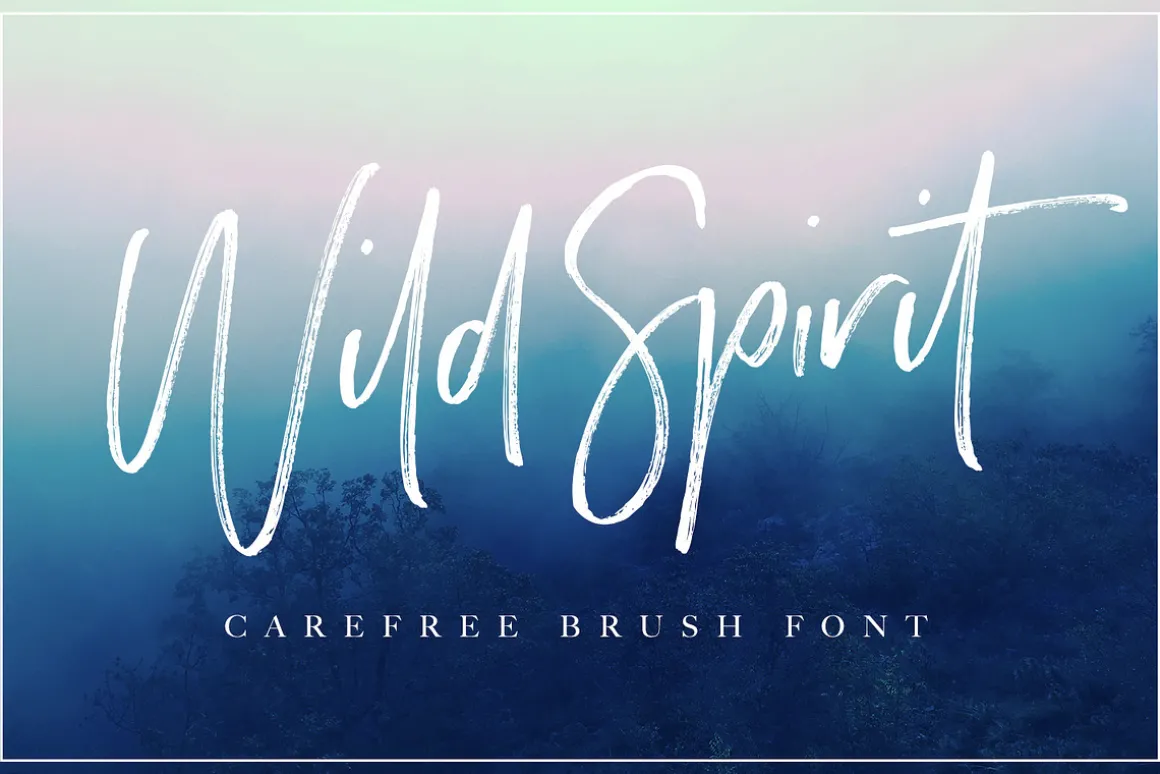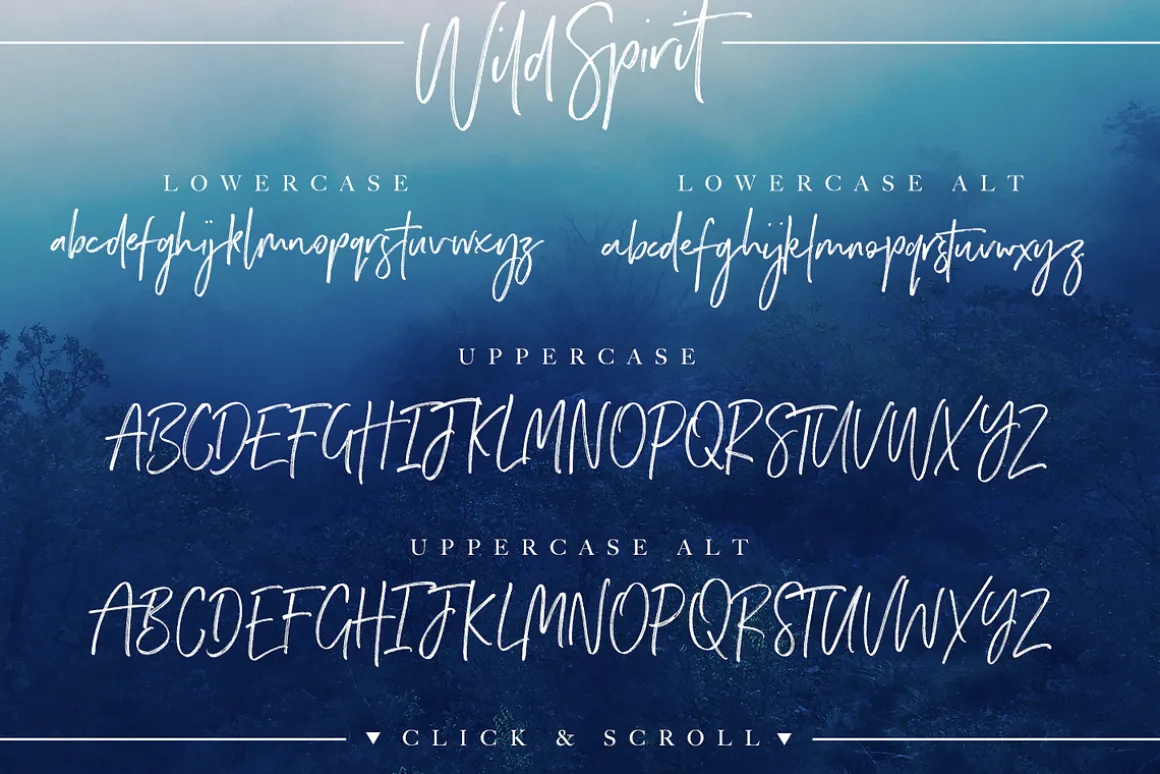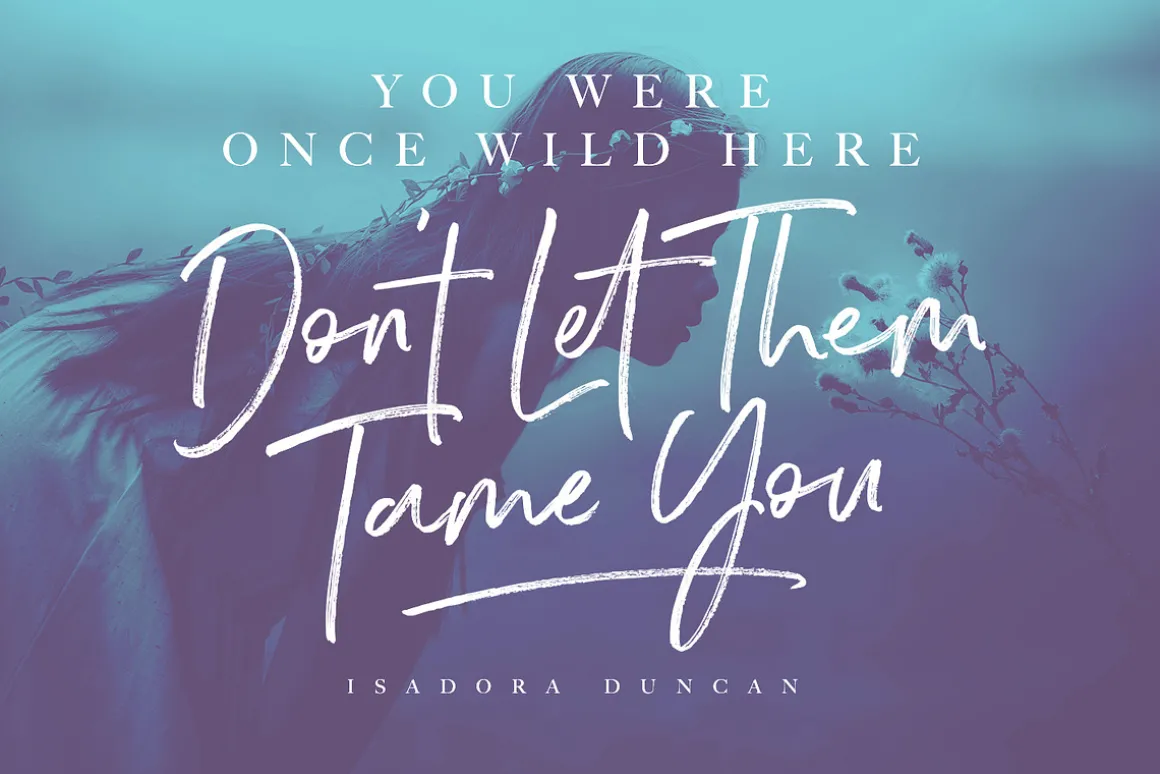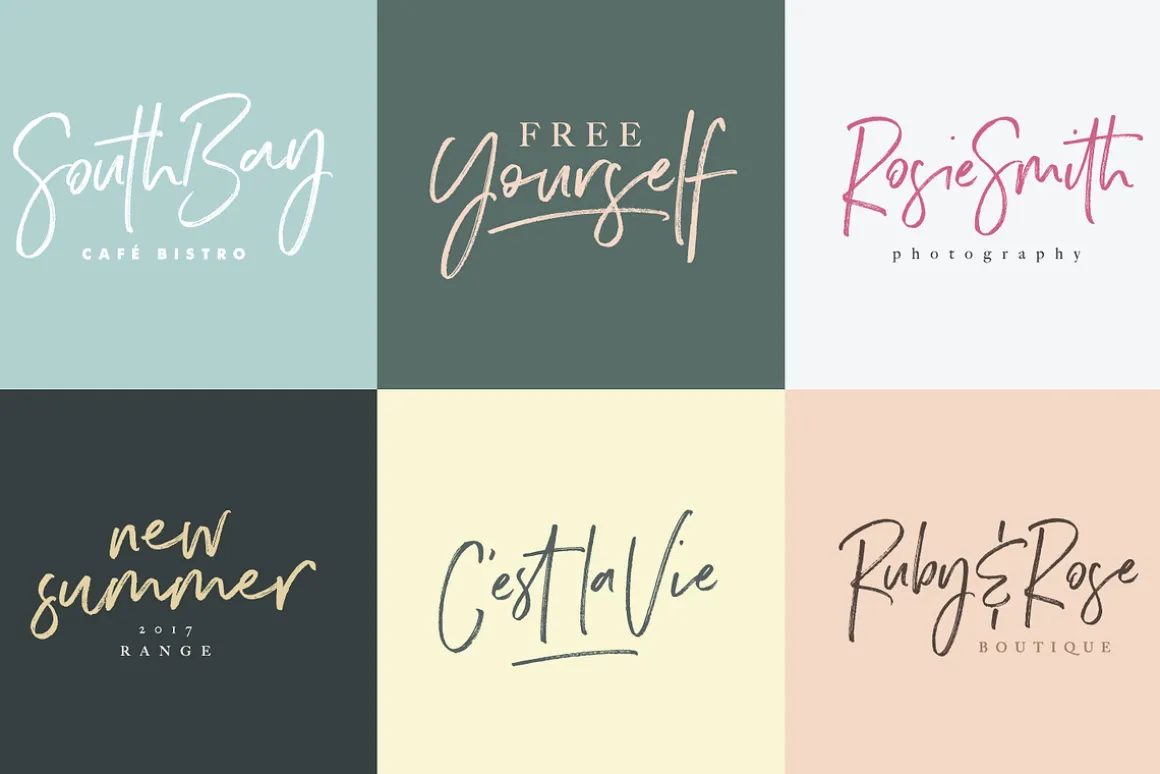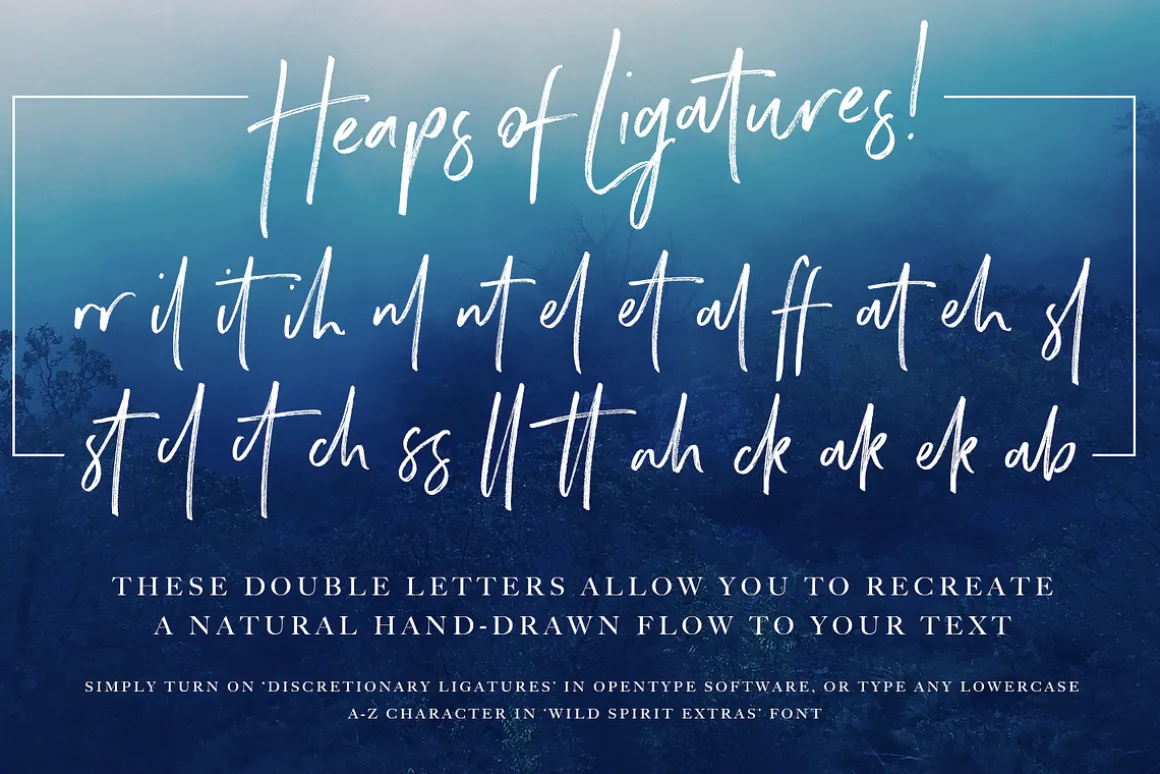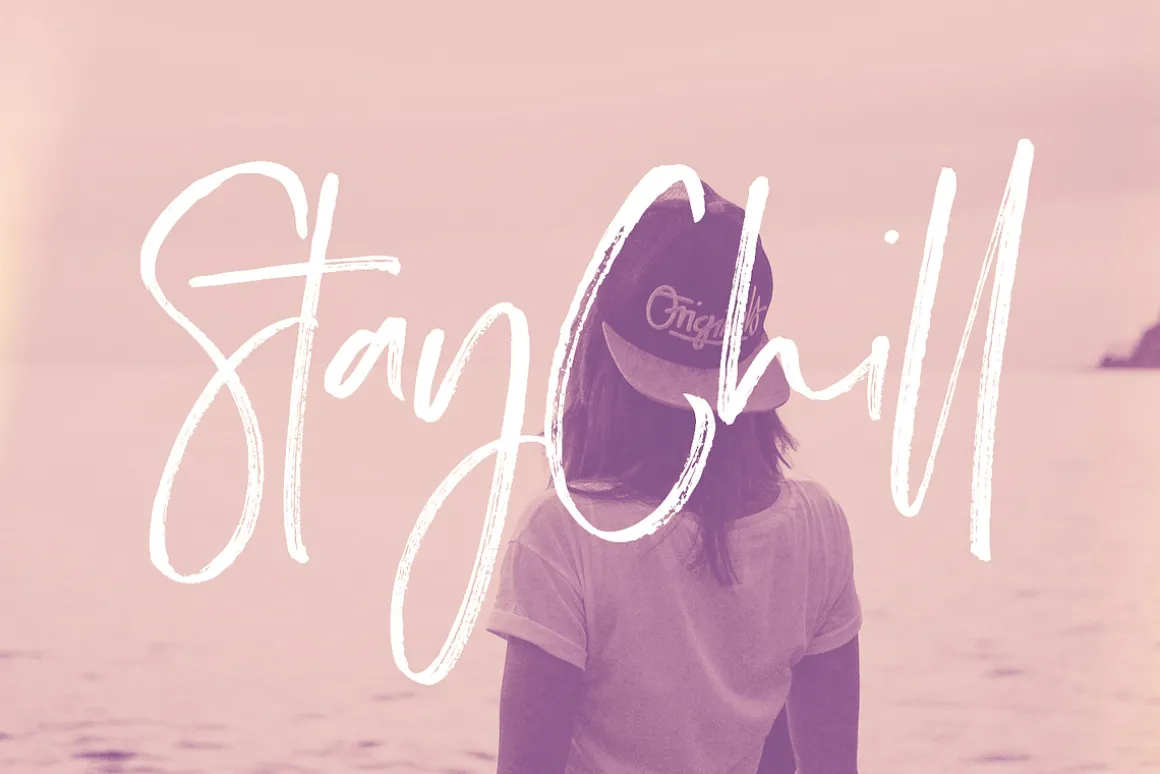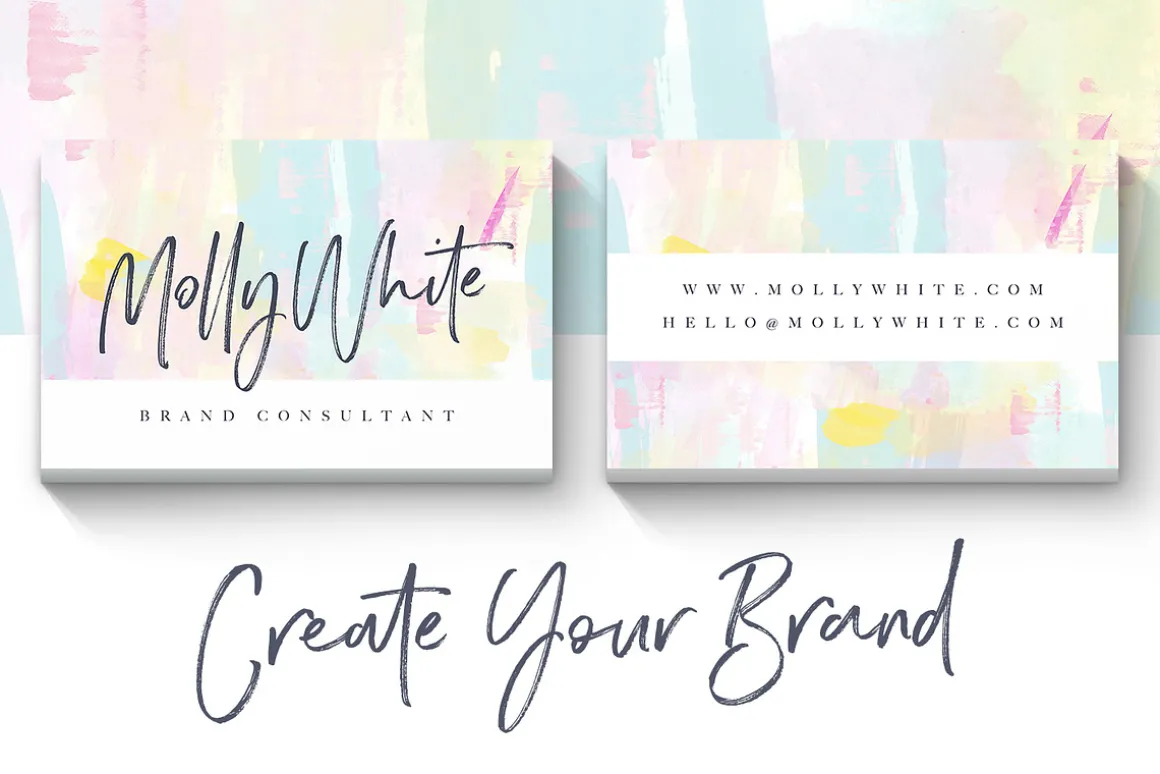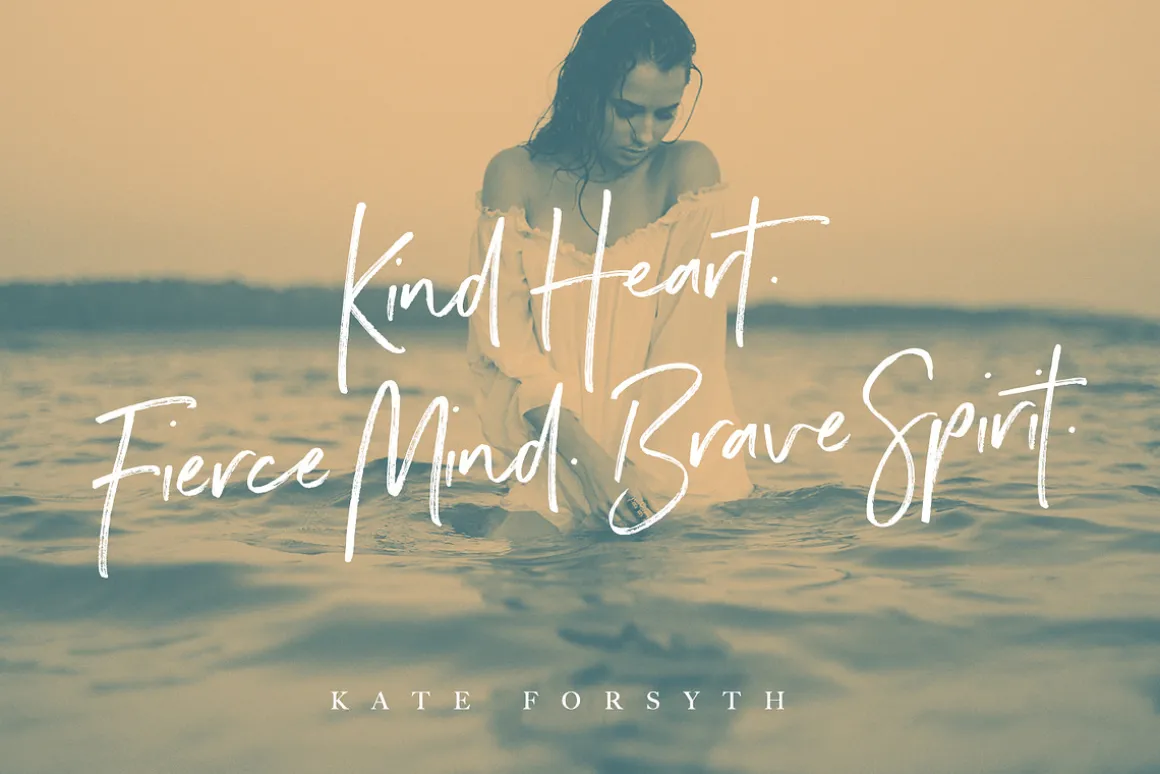
Introducing: Wild Spirit! A carefree and untamed brush font with a natural flow. Handmade with long organic strokes, Wild Spirit isn’t held back by any boundaries or expectations. It’s the perfect choice for personal branding projects, handwritten quotes, homeware designs, product packaging – or simply as a modern & stylish text overlay to any background image.
Wild Spirit includes two sets of each character, and 25 ligatures (double letters) – which combined offers you a huge range of customisability and layout options, and allows you to produce a very organic and natural handwritten flow to your text. It also comes with a bonus set of 14 swashes & arrows to assist your project.
1. Wild Spirit • A hand drawn script font containing upper & lowercase characters, numerals and a large range of punctuation.
2. Wild Spirit Alt • This is a second version of Wild Spirit, with a completely new set of lowercase and uppercase characters. If you wanted to avoid letters looking the same each time to recreate a custom-made style, or try a different word shape, simply switch to this font for an additional layout option.
3. Wild Spirit Extras • Simply type any uppercase character in this font to generate a swash, or any lowercase character in this font to generate a ligature. (Note – discretionary ligatures can also be turned on in opentype software, which will automatically switch standard letter pairs into the provided ligatures.)